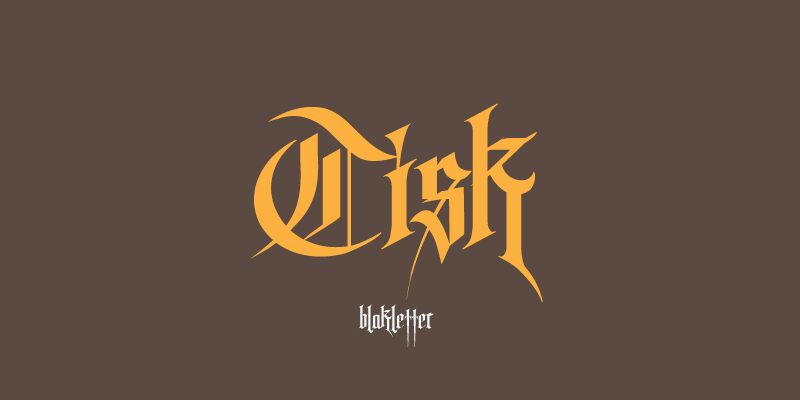
tisk Regular
Tisk, is blackletter font designed by Sigit Nur Wicaksono suitable for cassic dark and grim design. for comercial purposes please go to https://f2u.page.link/88ZX